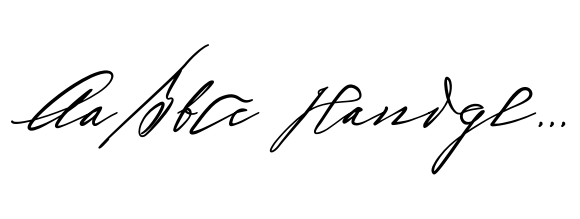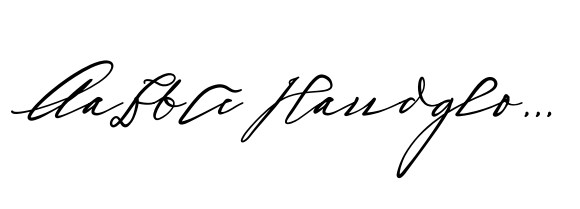
Sigmund Freud Typeface
by Harald Geisler
Sigmund Freud Typeface Font Family was designed by Harald Geisler and published by Harald Geisler. Sigmund Freud Typeface contains 2 styles family package options.
“For those who regret what keyboards and touch screens have done to their penmanship, typographer Harald Geisler has an answer: Sigmund Freud.”The Wall Street Journal Sigmund Freud was a neurologist who lived from 1856 to 1939. His research and studies led to the foundation of ‘Psychoanalysis’. When I first saw Freud’s century old letters, I was fascinated by the beauty of these historic manuscripts. It made me smile to imagine a person writing his or her shrink a letter set in Freud’s handwriting. I started to plan creating a font based on his manuscripts. I contacted the Sigmund Freud Museum Vienna and Freud Museum London. To start the creation I selected eight handwritten documents from the archive in Vienna – This selection of specimen was my orientation during the design process. The Samples were created between 1883 to 1938 and are of various character such as handwritten scientific papers, personal letters, notes and a telegram. A successful Kickstarter Campaign "The Sigmund Freud Typeface - A Letter to your Shrink" with over 1400 Backers enabled me to visit the archive in Vienna and study the original manuscripts of Sigmund Freud. After a year of preparation and design work, I finished four alphabets based on Freud’s handwriting. What are the different Versions PRO, Kurrent, #1, #2, #3 and #4 about? “This project gives people the convenience afforded by the computer while maintaining the romantic nostalgia, beauty, and character of letter writing with real handwriting.” — Daniel Vahab, The Huffington Post When you write with your hand, every letter looks a little different. When you write a text on your computer every letter looks exactly the same. In order to make type look like handwriting, I chose four different variations of each letter from Freud’s manuscripts, drew and stored them in the font. The font is then programmed to exchange letters while you are typing. This makes the rendered result on your screen or print look like unique handwriting. PRO While you are typing… the PRO Version actively combines all four alphabets and exchanges them automatically. Through this mechanism never the same two o’s will stand next to each other. With every touch a unique look is generated. This works in certain applications i.e. Word 2010(or newer), Pages, TextEdit, Editor(Pre-installed on Windows 7 or newer), InDesign, Illustrator… →Here you can see an animation of what this effect looks like in action. (Please Note: some applications like LibreOffice, OpenOffice do currently not support this feature. Date: December 2013) #1 #2 #3 and #4 The Sigmund Freud Typeface #1, #2, #3 and #4 each hold one individual lowercase alphabet based on Freud’s handwriting. Kurrent Most of Freud’s correspondence was written in German. Until the 1950′s a different handwriting was taught throughout German speaking countries (Switzerland, Austria, Germany). This style is called Kurrent. The name Kurrent and Cursive derive from the Latin word currere - to run, hurry - both styles were designed to write fast. As you can see in the samples above, Freud practiced both Kurrent and when writing english Cursive (Latin script or Joined-up). Kurrent has three significantly different letters (s,h,e). Use Kurrent to render the authentic look of an historic Sigmund Freud letter in German. Bundle On the Top of this page you can get all six fonts of the Sigmund Freud Typeface Family in a bundle. International Typeface All styles of the Sigmund Freud Typeface feature a wide range of accented letters so you can write to all your friends in Sweden (Bjørn) France (Chloé & Zoë), Ireland (Dáirine), Poland (Łucja), Germany (Jörg) and almost everywhere around the globe (Find a complete list in the tech specs). Usage recommendations I hope that this design will be valuable to you and most of all that you have fun with this typeface! 1. Point Size — To reproduce the size of Sigmund Freud’s handwriting adjust the type size between 18-24 point in your word processor. If you are using an imaging software like Photoshop set the resolution to 300dpi and adjust the point size between 18-24. 2. Line Spacing — Narrow the line hight until swashes of capital letters touch the baseline above. This also happens when you write a letter and gives the document a unique handwritten look. 3. Right Aligned — Freud had the habit to write towards the right edge of the page and start loosely on the left. Set your text alignment to ‘right’ to incorporate this dramatic expression also to your documents. What do other People say about the Sigmund Freud Typeface? “Wouldn’t you love to write a letter to your shrink using the Sigmund Freud typeface?” — Dorothy Tan, Design TAXI ''“JUST DON’T WRITE A LETTER TO YOUR MOTHER WITH IT… …until the reader looks a bit closer, and they see 70+ years of modern science weighing in on turn-of-the-century pop psychology."'' — Mark Willson, Fast Company “Doctor, what does it mean if you dream of creating a font of Freud’s handwriting?” — Ayun Halliday, Open Culture “…geekily romantic, at once artistic and scientific” — Edie Jarolim, Freud’s Butcher “…sympathisch” — Jürgen Siebert, Fontblog !WOW! Thank you for reading the complete font description! You are awesome! If you still have a question please contact me through MyFonts or my website haraldgeisler.com. Credits This project was made possible by the help of 1481 Backers on Kickstarter and the kind support of the Sigmund Freud Museum Vienna and the Freud Museum London. Thank you. All of Freud’s Manuscripts shown are © Sigmund Freud Museum Vienna. Poster Image: IN17 - Sigmund Freud, Germany 1932. © Freud Museum London. Flag Image: IN19 - Sigmund Freud 1930’s. © Freud Museum London.